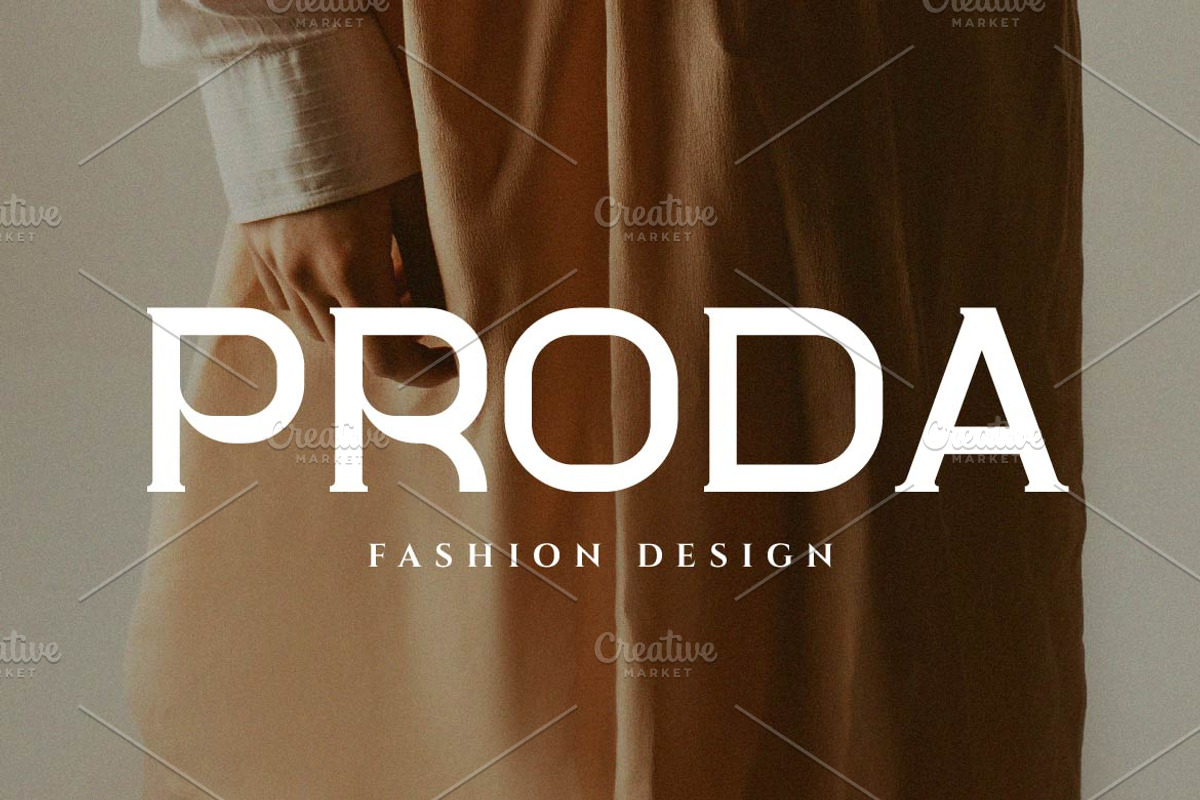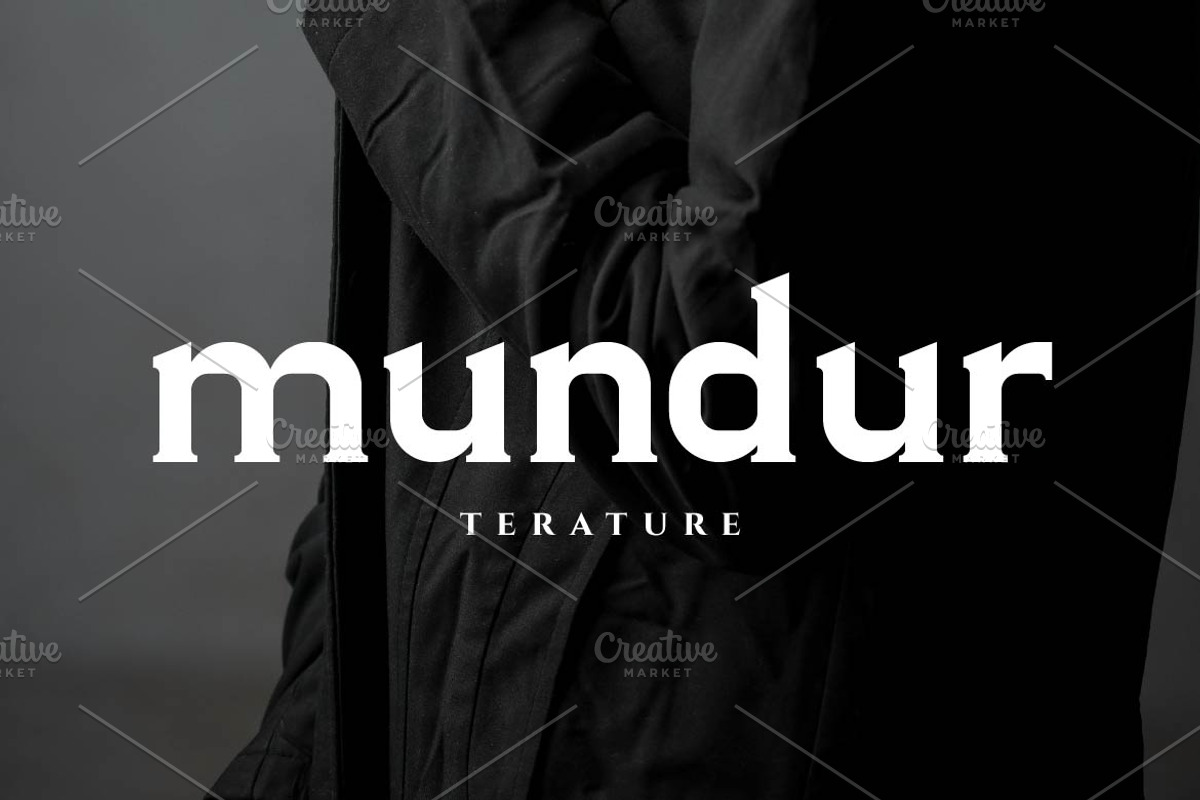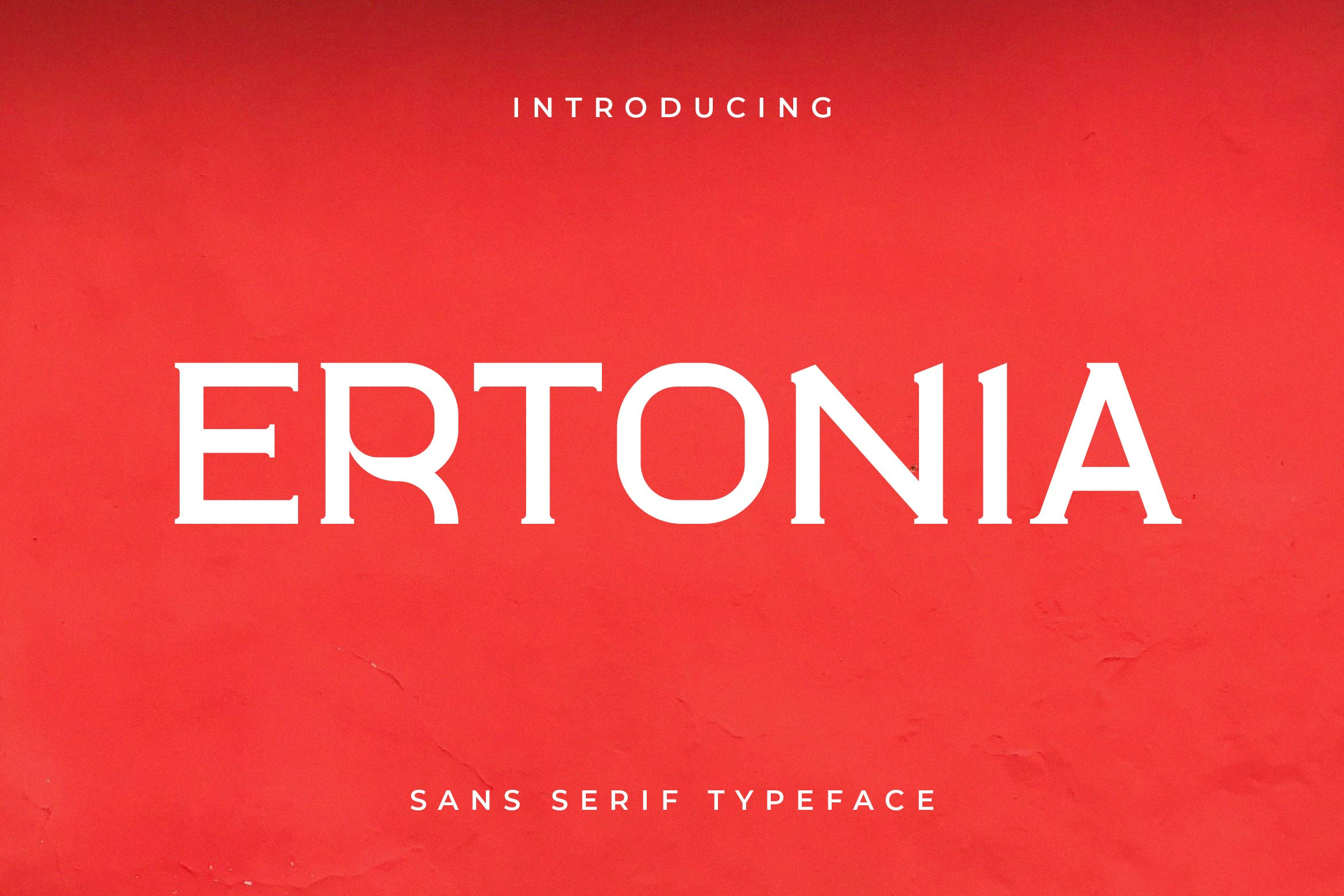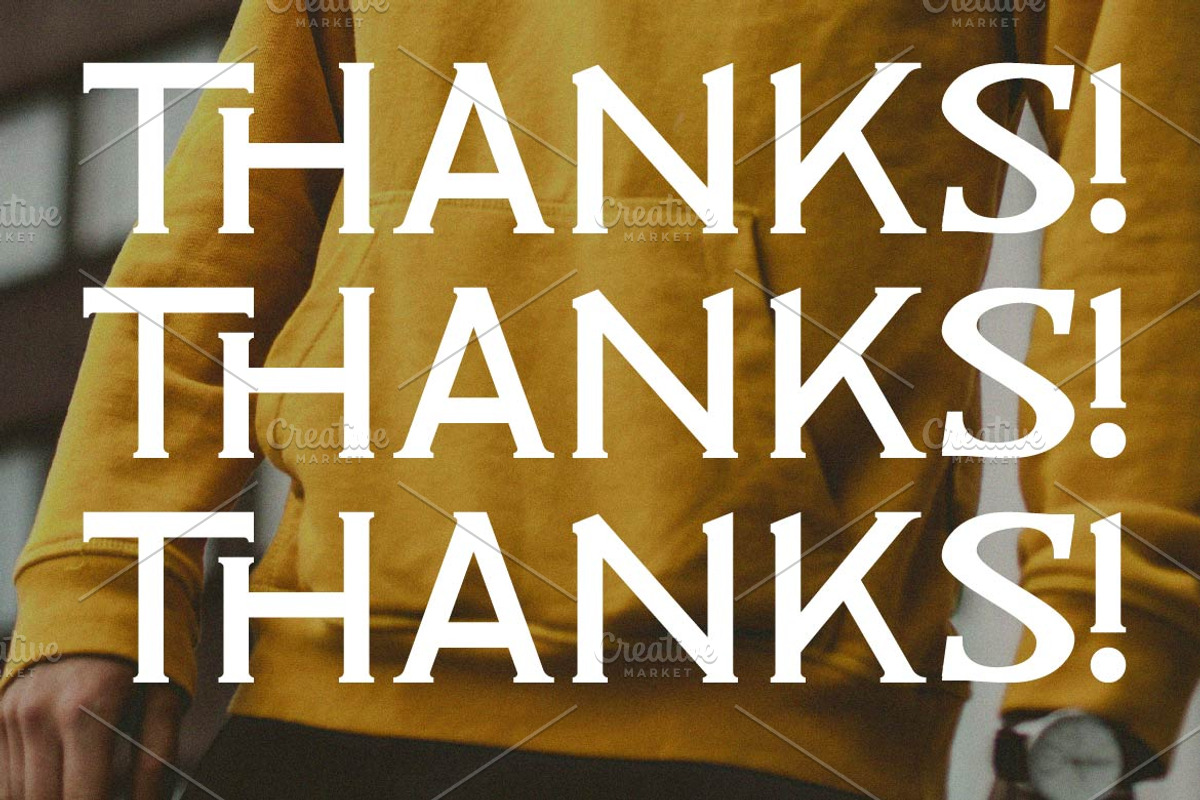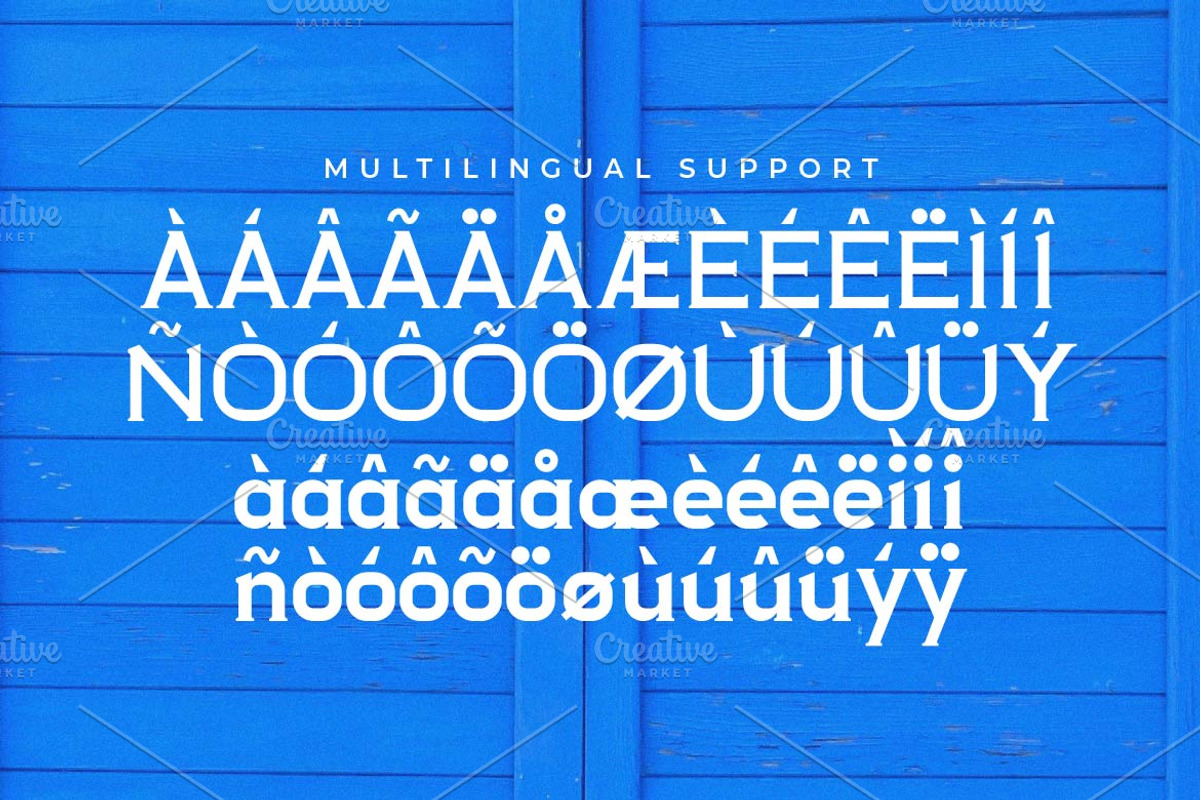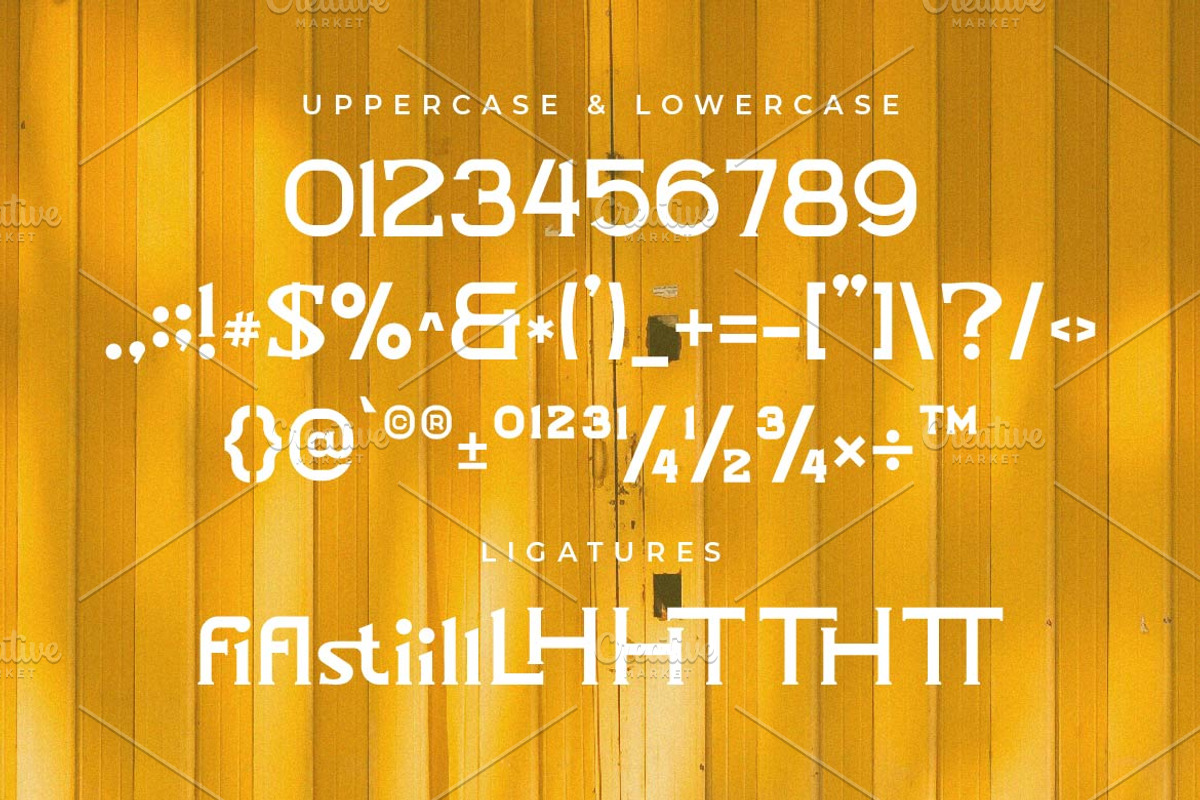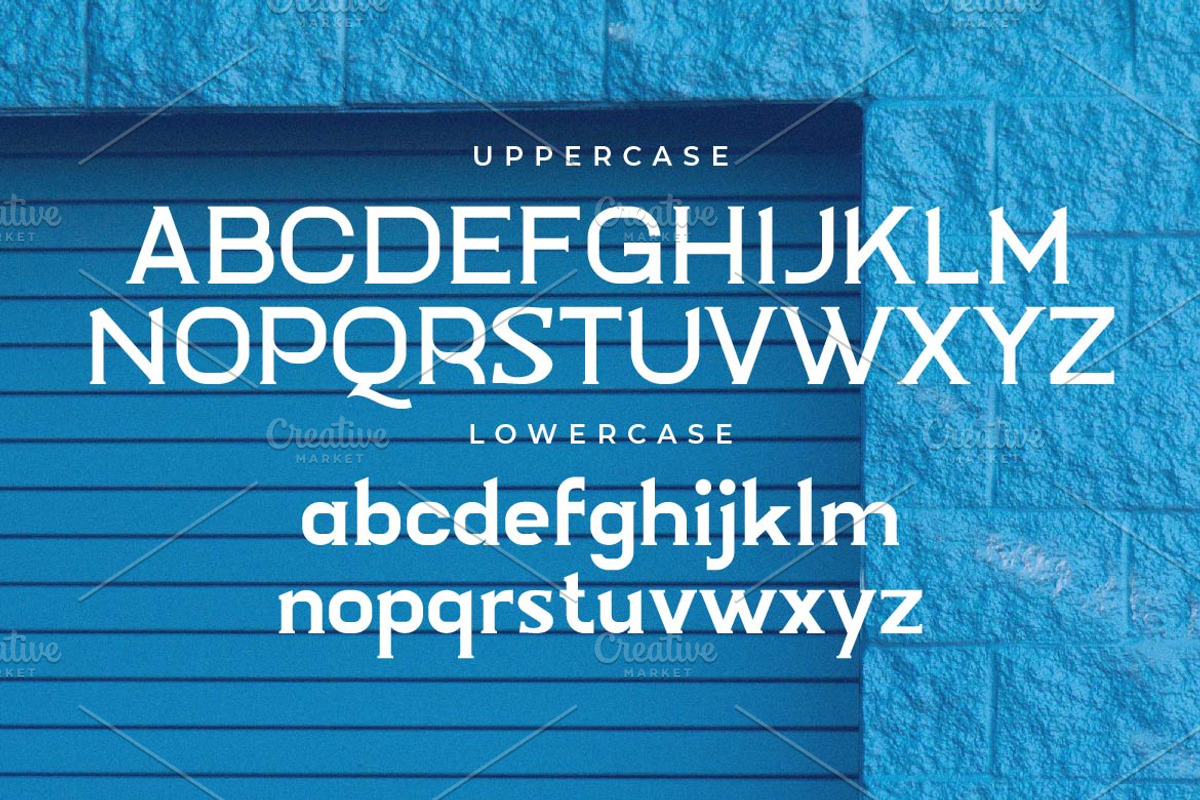
Ertonia Slab Serif Font
Ertonia is a creative slab serif font by Iwan Alwan, featuring bold, striking letterforms with a modern twist. Perfect for branding, posters, and editorial layouts, Ertonia combines the strength of slab serifs with artistic detailing to create a distinctive and dynamic look. With multilingual support, ligatures, and alternates, Ertonia offers versatility while maintaining a creative, impactful aesthetic, making it ideal for projects that demand attention and originality.